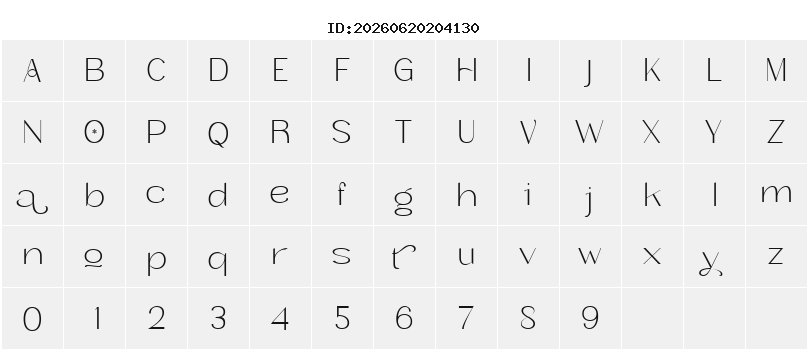
Roses Bolero Demo Preview
• Font Name: Roses Bolero Demo
• Full Font Name: Roses Bolero Demo
• Designer: Ekayasa
About Roses Bolero Demo.ttf
Roses Bolero Demo.ttf is a modern, elegant sans-serif font designed for ultimate readability and visual harmony. Perfect for branding, headlines, web design, and print materials.